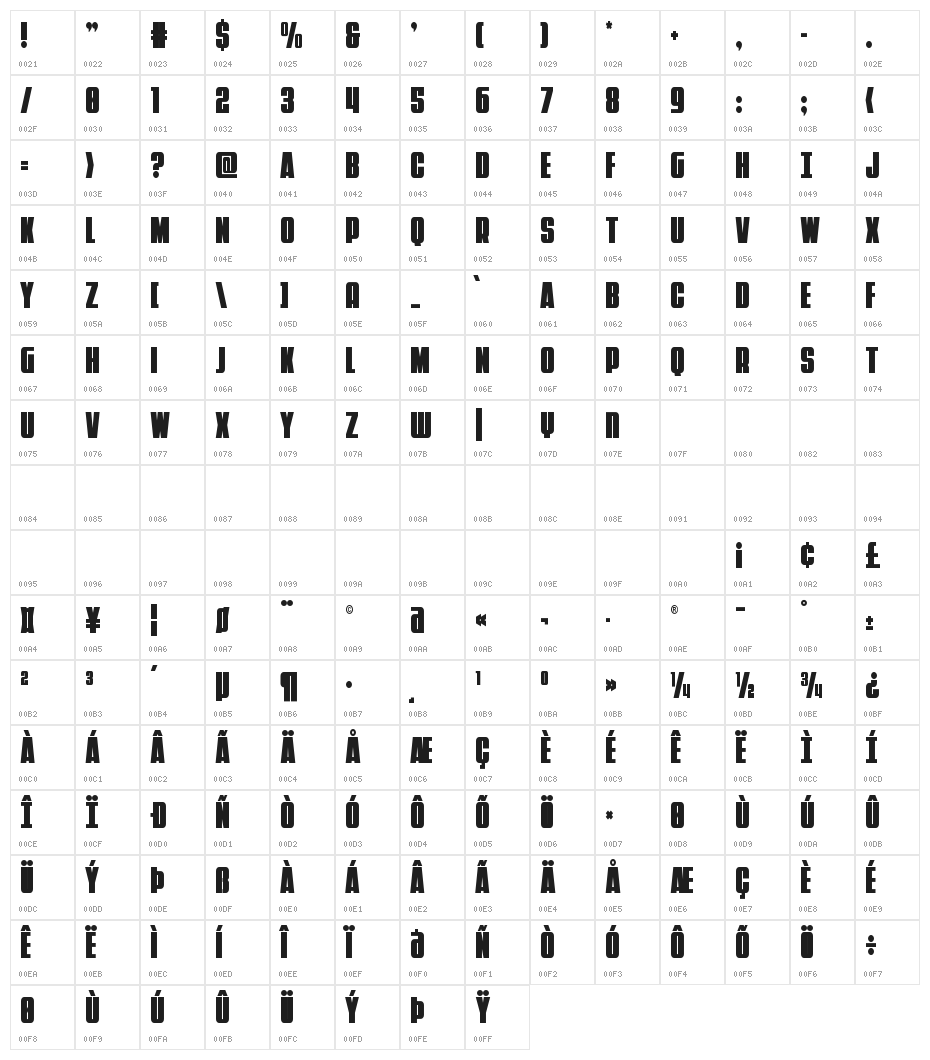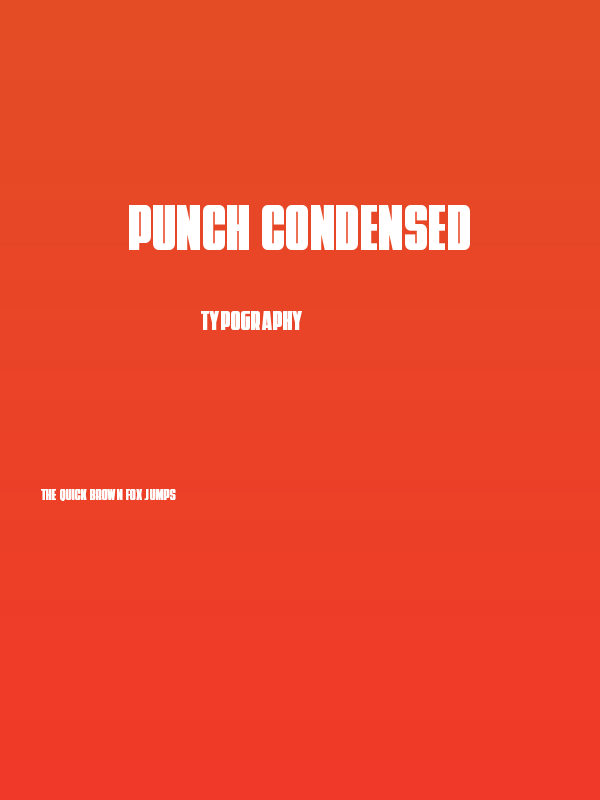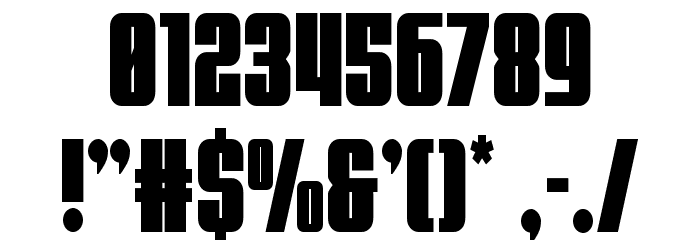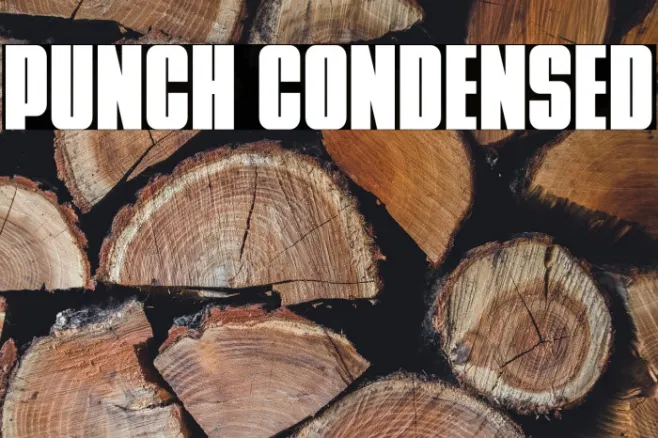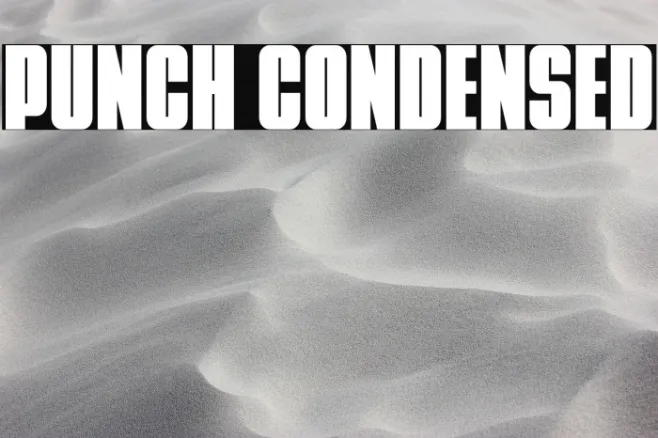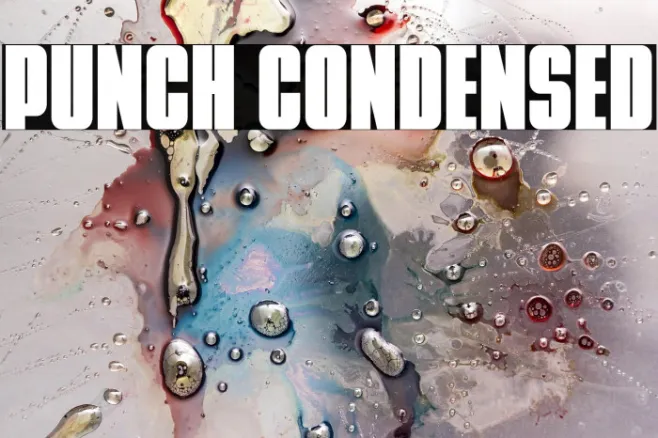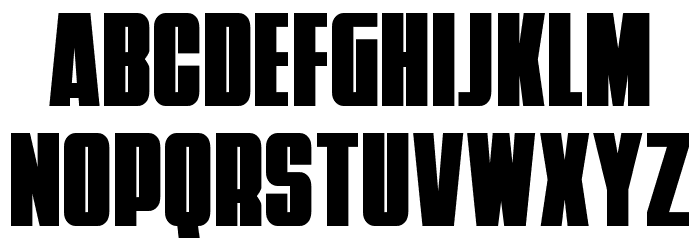
Punch Condensed Font
This font features a bold and impactful design with a condensed width, making it ideal for creating strong visual statements. The characters are uniformly thick, providing a consistent and powerful appearance. The uppercase letters are prominent and assertive, while the lowercase letters maintain the same boldness, ensuring readability and emphasis. The numbers and special characters follow the same design principles, offering a cohesive look across all text elements. This font is perfect for projects that require a commanding presence and clear communication.
| Proposed Projects | This font is well-suited for posters, headlines, branding materials, and any project that requires a strong and bold visual impact. |